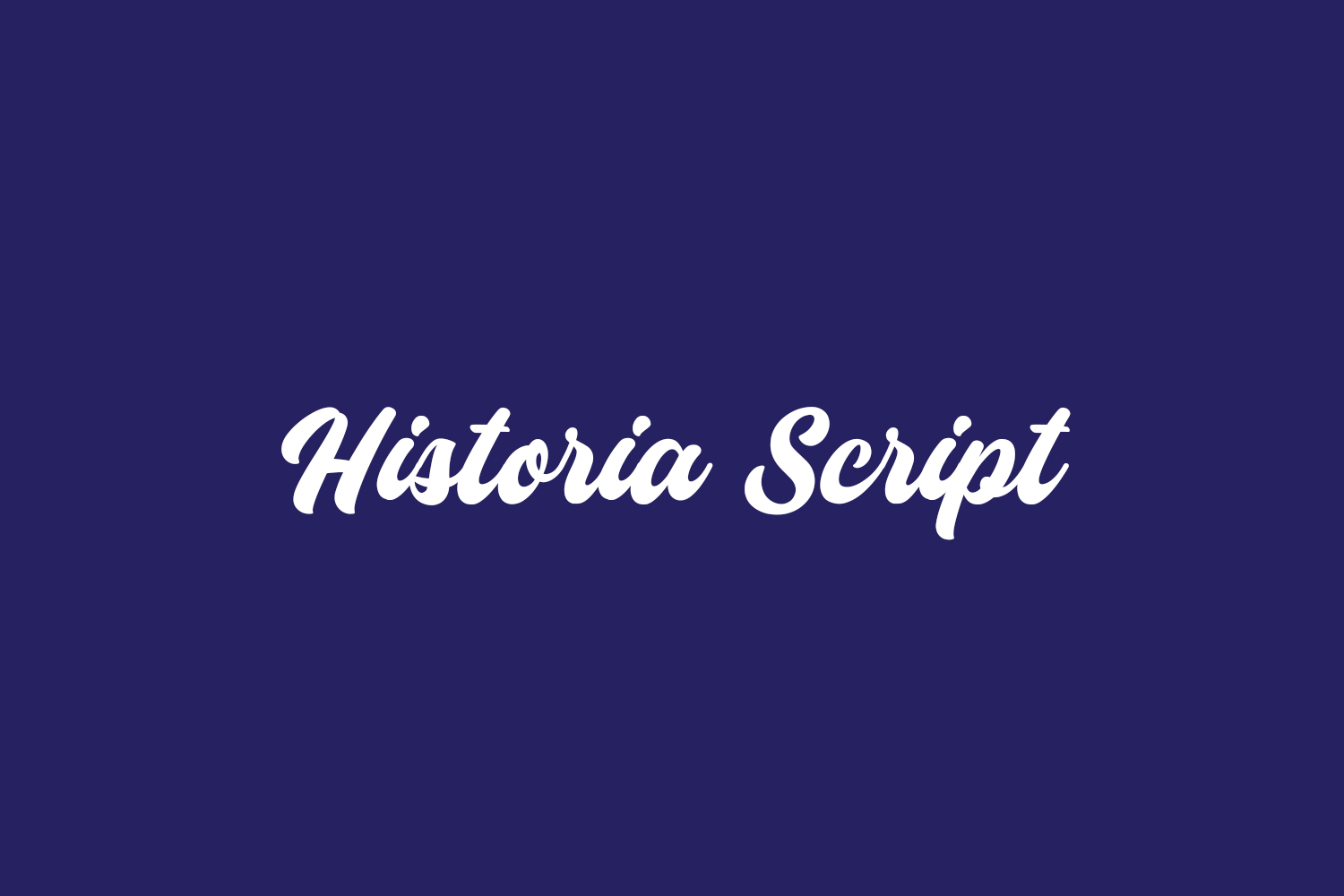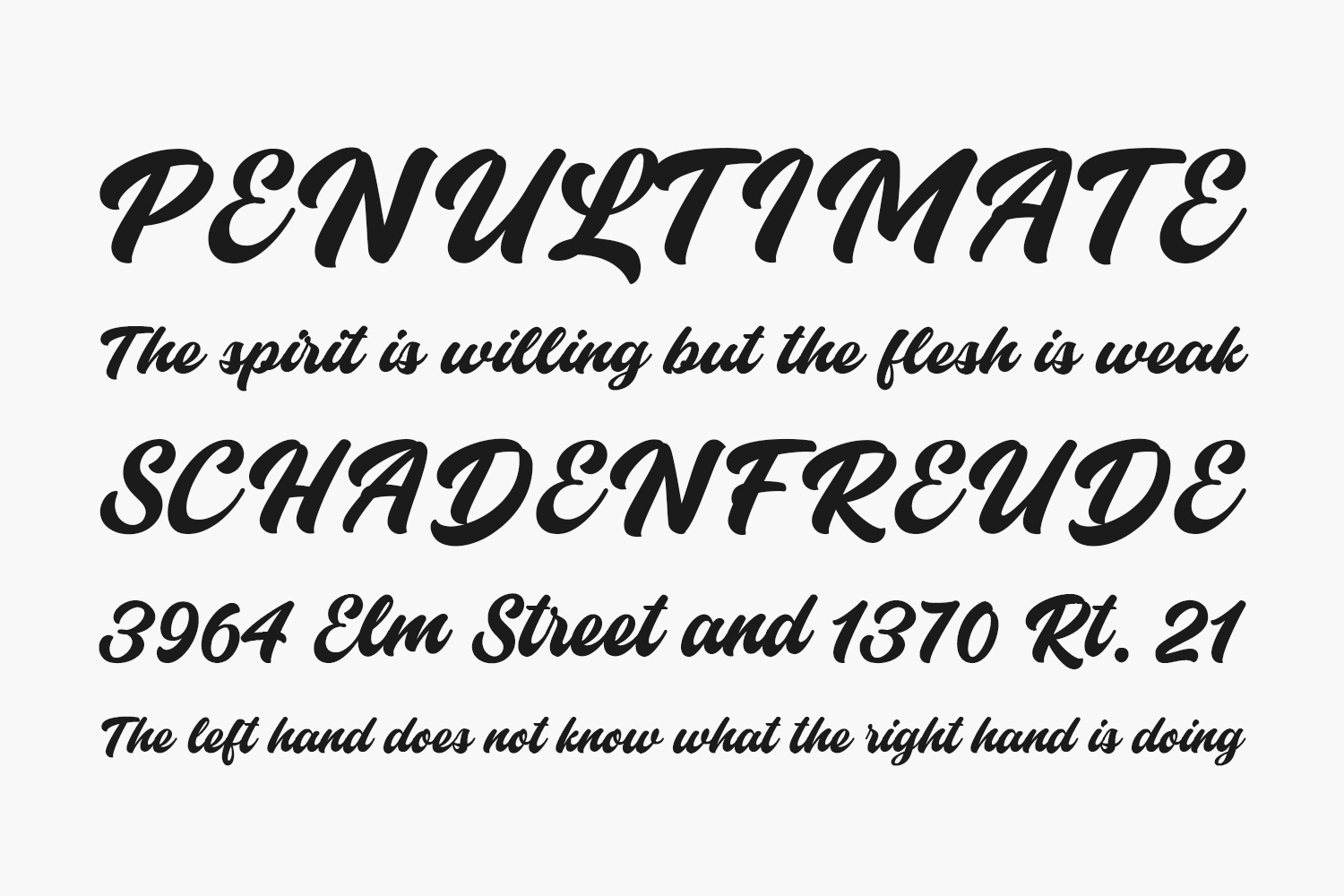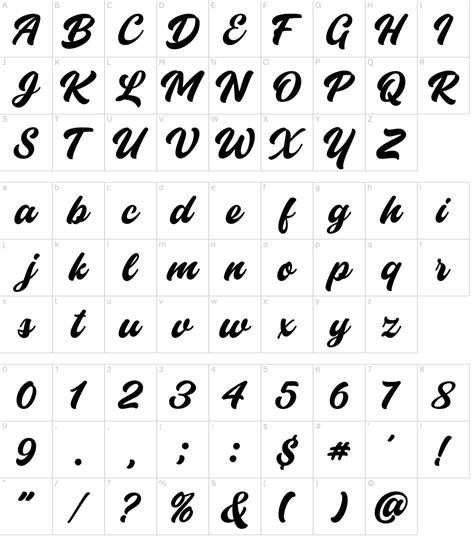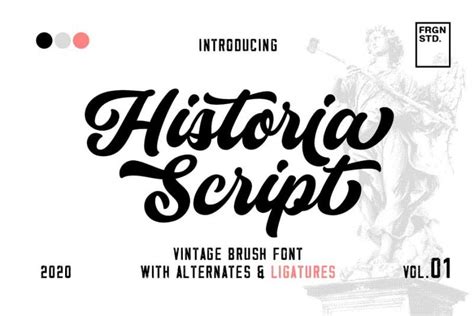
Historia Script Font
Historia Script Font - ← back to family page. The playful rounded characters make it the perfect font for. Historia script can be used for various purposes. Web historia script is a stylish handwritten vintage font.
Historia script can be used for various purposes. ← back to family page. The playful rounded characters make it the perfect font for. Web historia script is a stylish handwritten vintage font.
Web historia script is a stylish handwritten vintage font. The playful rounded characters make it the perfect font for. ← back to family page. Historia script can be used for various purposes.
Web Historia Script Is A Stylish Handwritten Vintage Font.
Historia script can be used for various purposes. The playful rounded characters make it the perfect font for. ← back to family page.